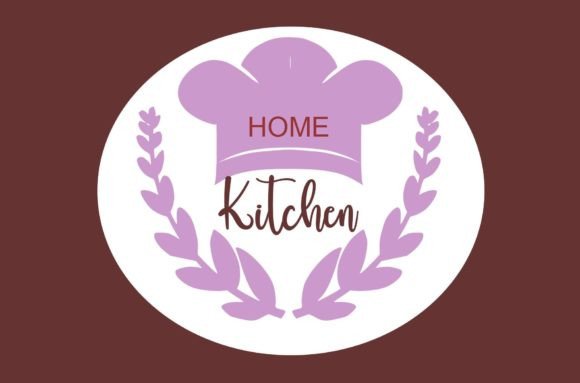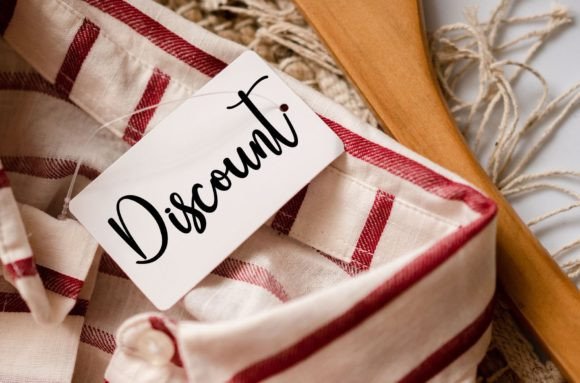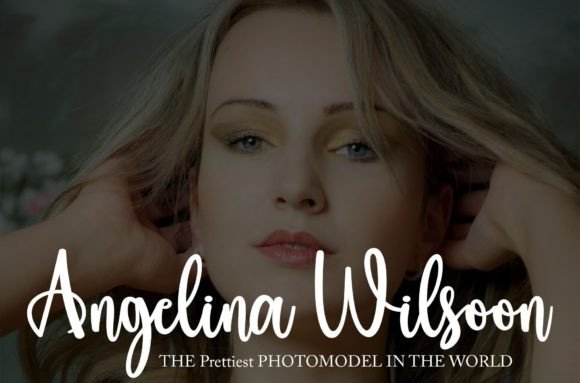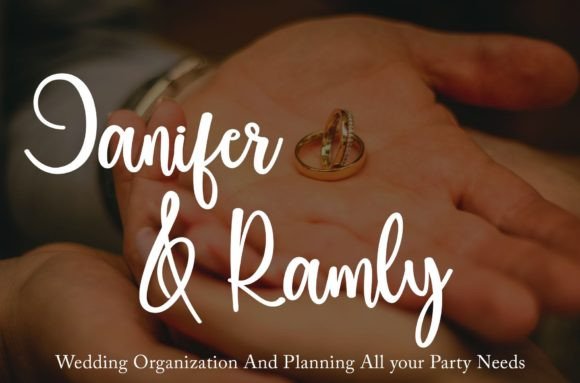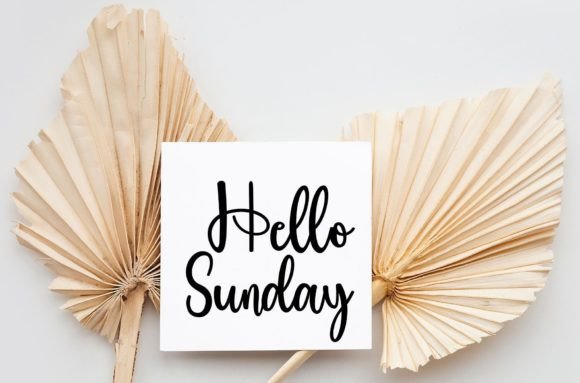
Introducing Child Font: A Timeless Handwritten Script for Creative Projects
Are you a designer or crafter looking for a font that adds a personal touch to your creative projects? Look no further than Child Font, a classic and simple handwritten script that is perfect for a wide range of applications. In this article, we’ll explore the features and benefits of Child Font, and show you how it can elevate your designs to the next level.
What is Child Font?
Child Font is a beautifully crafted handwritten script that exudes a sense of simplicity and elegance. Created in a random and free style, this font is perfect for adding a touch of personality to your designs. With its classic and timeless feel, Child Font is suitable for a wide range of projects, from logotypes and headlines to corporate identity and brand design.
Key Features of Child Font
- Handwritten script: Child Font is a genuine handwritten script, giving it a unique and personal feel that sets it apart from more formal fonts.
- Simple and elegant: The font’s simple and elegant design makes it perfect for a wide range of applications, from corporate identity to creative projects.
- Random and free style: Child Font’s random and free style gives it a playful and spontaneous feel that’s perfect for adding a touch of personality to your designs.
- Highly versatile: Child Font is suitable for a wide range of projects, including logotype, headline font, corporate identity, brand identity, apparel industry, poster, music, movie, game, magazine, book, comic, cartoon, YouTube, Instagram, website, and more.
Use Cases for Child Font
Child Font is an incredibly versatile font that can be used in a wide range of projects. Here are some examples of how you can use Child Font in your designs:
- Logotype and branding: Use Child Font to create a unique and memorable logotype that sets your brand apart.
- Headlines and titles: Child Font is perfect for headlines and titles, adding a touch of personality and elegance to your designs.
- Corporate identity: Use Child Font to create a cohesive and professional corporate identity that reflects your brand’s values and personality.
- Apparel industry: Child Font is perfect for use in the apparel industry, adding a touch of personality and style to your designs.
- Poster and print design: Use Child Font to create eye-catching posters and print designs that grab attention and leave a lasting impression.
Benefits of Using Child Font
There are many benefits to using Child Font in your designs. Here are just a few:
- Unique and memorable: Child Font is a unique and memorable font that will help your designs stand out from the crowd.
- Elegant and sophisticated: Child Font adds a touch of elegance and sophistication to your designs, making it perfect for high-end brands and creative projects.
- Highly versatile: Child Font is suitable for a wide range of projects, making it a great addition to any designer’s font library.
- Easy to read: Despite its handwritten nature, Child Font is easy to read and understand, making it perfect for use in body text and other applications.
Tips for Using Child Font
Here are a few tips for using Child Font in your designs:
- Use it sparingly: Child Font is a bold and eye-catching font, so use it sparingly to avoid overwhelming your designs.
- Pair it with other fonts: Child Font pairs well with other fonts, so don’t be afraid to experiment with different combinations.
- Experiment with colors and textures: Child Font looks great in a variety of colors and textures, so don’t be afraid to experiment and find the perfect look for your designs.
Child Font is a timeless and elegant handwritten script that is perfect for a wide range of creative projects. With its classic and simple design, Child Font is suitable for use in logotype, headline font, corporate identity, brand identity, apparel industry, poster, music, movie, game, magazine, book, comic, cartoon, YouTube, Instagram, website, and more. Whether you’re a designer or crafter, Child Font is a great addition to any font library, and is sure to elevate your designs to the next level.